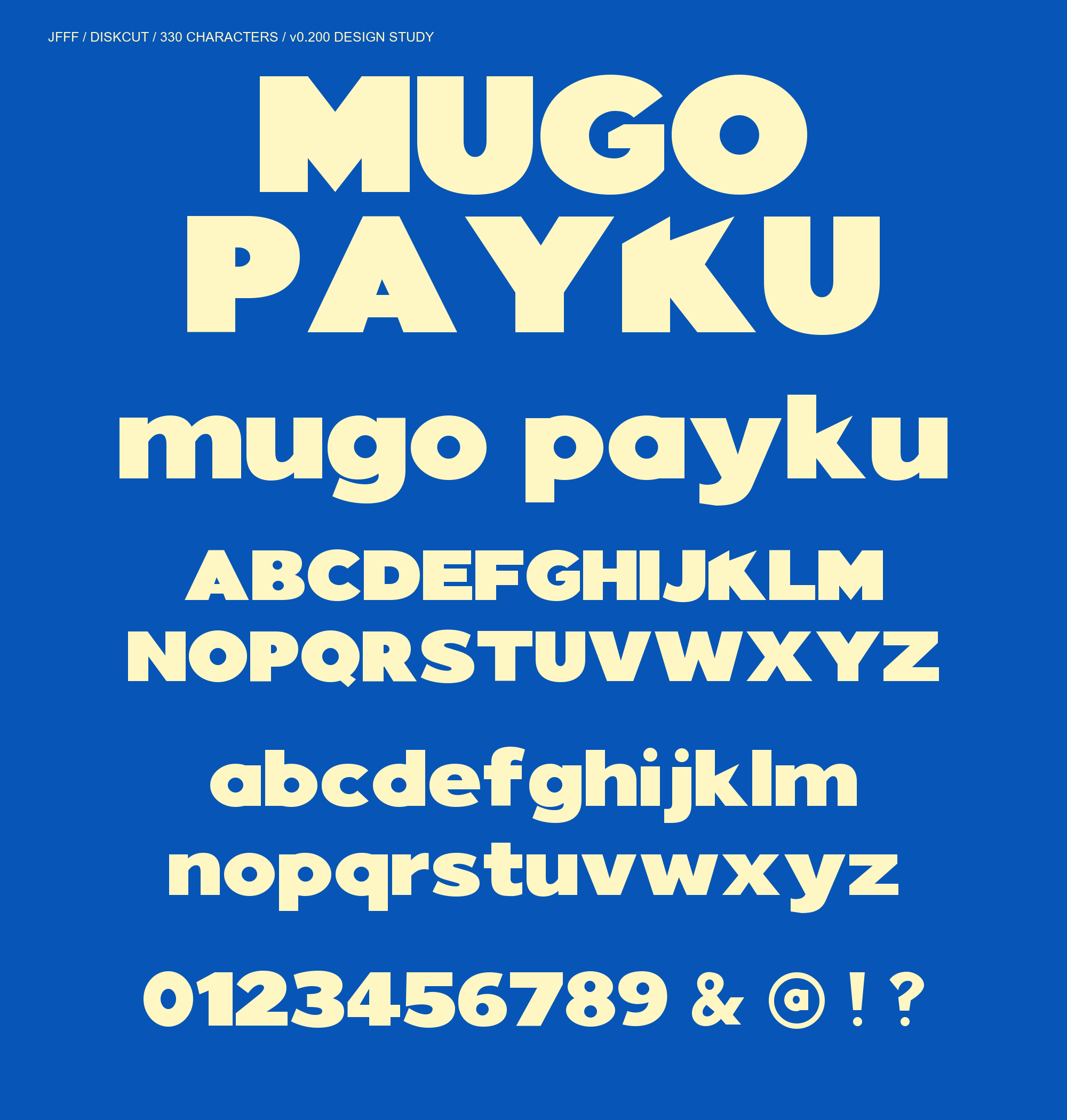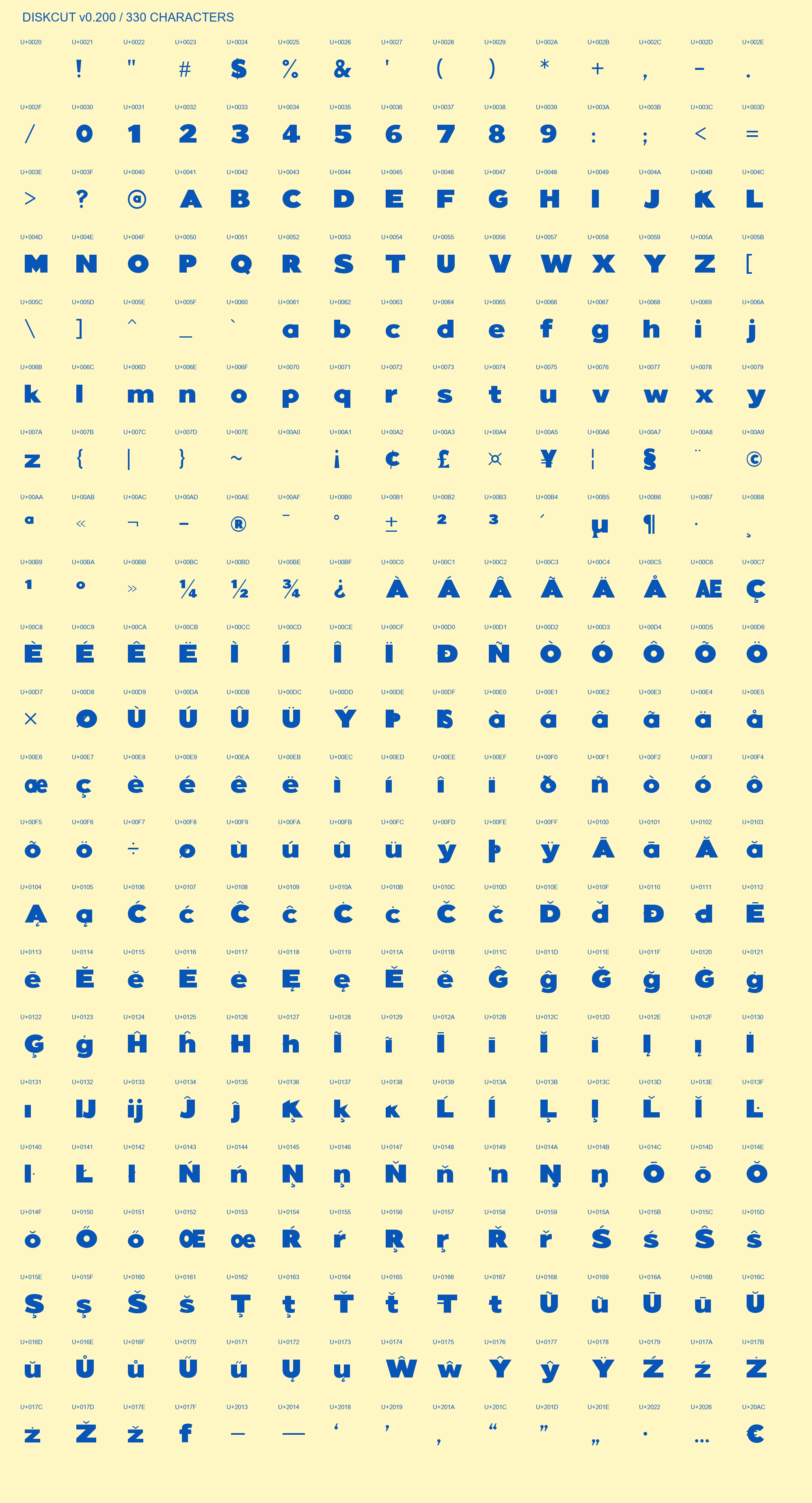
DISKCUT geometric display font: MUGO PAYKU, uppercase and lowercase.
Small counters. Big presence. DISKCUT is an ultraheavy geometric display sans with broad bodies, small circular counters, flat terminals and sharp angular cutouts. The interlocking cuts of M, compact U channel and diagonal K give short headlines a bold graphic rhythm. Lowercase letters extend the circular construction with single-storey a and g. Version 0.200 fills the lower cutout of Y for a straight stem and flat baseline, including its accented variants. 330 encoded characters and 331 glyphs cover Basic Latin, Latin-1, Latin Extended-A and selected punctuation, including spaces. Designed for large poster titles, provisionally 48–144 pt. Design preview: individual enlarged review of the full character set, native-app installation and physical print validation are pending. Precomposed Latin accents are supported; Hangul and independent combining marks are not included. Download includes TTF and SIL OFL 1.1.